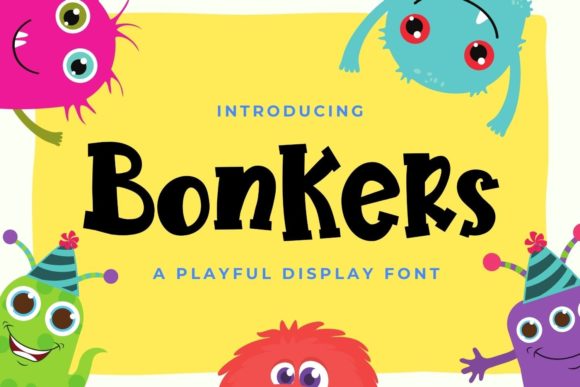
Bonkers Font
Introducing Bonkers, the playful and approachable display font that exudes warmth and charm. Its childlike simplicity captures the essence of lightheartedness, making it the perfect choice for creating designs that evoke a sense of nostalgic fun.
With its rounded edges and whimsical curves, Bonkers brings a touch of playfulness to any project. Its highly legible characters ensure effortless readability, whether you're crafting eye-catching posters, designing captivating digital content, or creating personalized greeting cards.
Unleash your creativity and let Bonkers transform your designs into charming works of art. Its versatile nature makes it suitable for a wide range of projects, from crafting invitations and branding materials to designing websites and creating presentations. Let Bonkers be your go-to font for adding a dash of whimsy and cheer to all your creative endeavors.
Embrace the playful spirit of Bonkers and let your designs emanate infectious happiness. Its friendly and approachable nature promises to captivate audiences, leaving a lasting impression. Join the Bonkers revolution and let your projects radiate with the magic of childhood wonder.